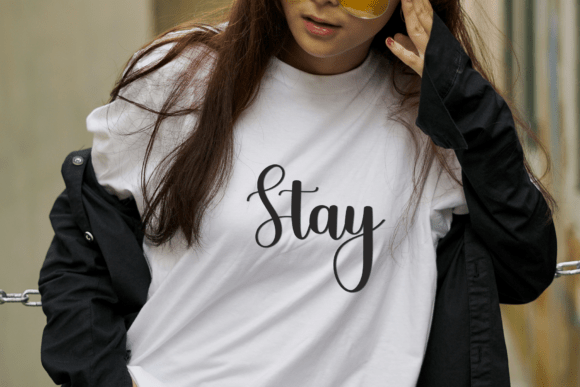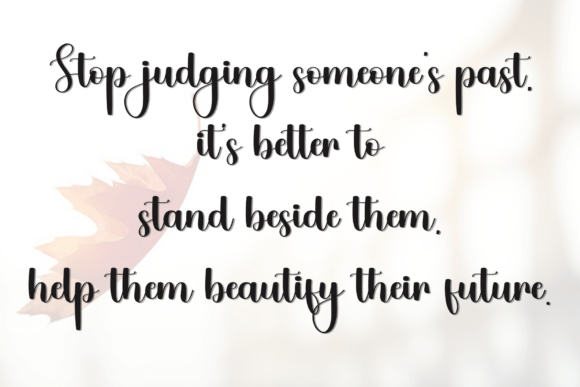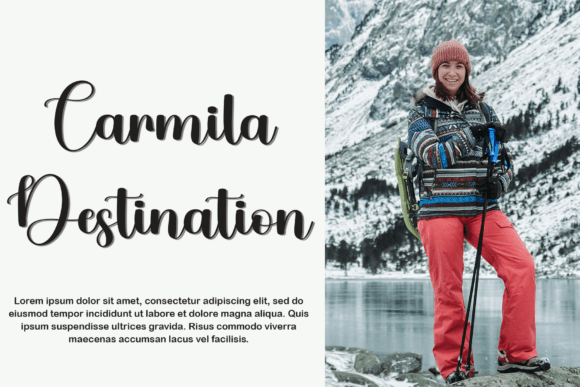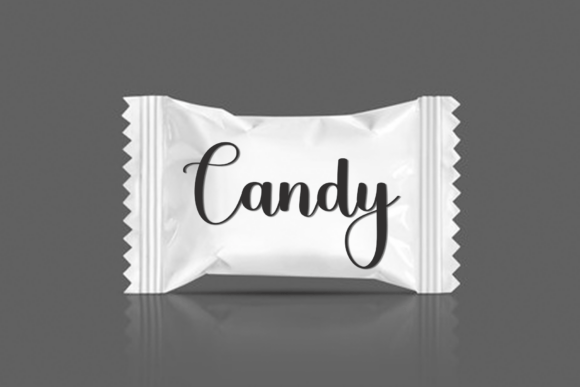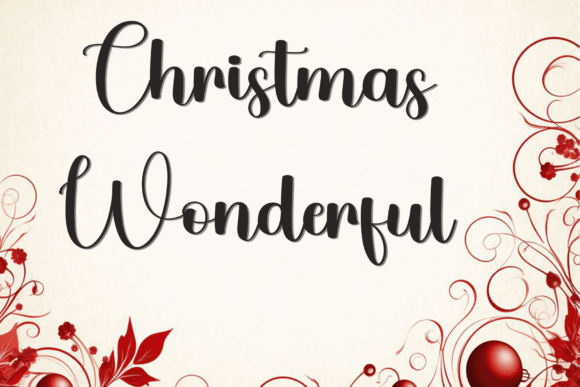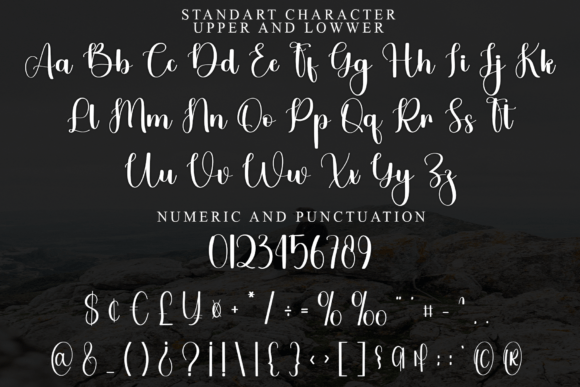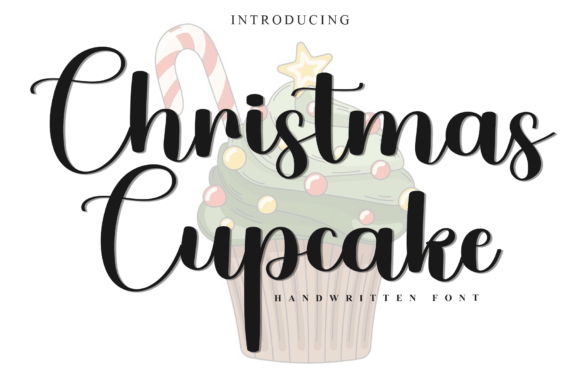
Christmas Cupcake Font: The Sweetest Addition to Your Holiday Designs
Are you looking for a font that embodies the joy and cheer of the holiday season? Look no further than the Christmas Cupcake font! This deliciously sweet and playful handwritten script font is perfect for capturing the magic of Christmas and adding a touch of whimsy to your designs.
A Deliciously Sweet Font
Christmas Cupcake is a beautifully crafted font that features thick, flowing strokes and subtle variation in baseline, giving it an energetic and homemade quality. The font’s playful and cheerful vibe makes it perfect for a variety of design projects, from bakery branding and festive packaging to Christmas cards and party invitations.
Whether you’re a designer looking for a unique font to add to your collection or a crafter seeking a special font for your holiday projects, Christmas Cupcake is an excellent choice. The font’s versatility and charm make it suitable for a wide range of applications, including:
- Bakery branding: Add a touch of sweetness to your bakery’s logo and packaging with Christmas Cupcake.
- Festive packaging: Make your holiday products stand out with a font that’s sure to put a smile on customers’ faces.
- Christmas cards: Create beautiful and festive cards that will delight friends and family.
- Party invitations: Set the tone for a fun and festive celebration with Christmas Cupcake.
Key Features of Christmas Cupcake Font
So, what makes Christmas Cupcake font so special? Here are some of its key features:
- Handwritten script font with a playful and cheerful vibe
- Thick, flowing strokes and subtle variation in baseline for an energetic and homemade quality
- Perfect for designs that require a strong dose of cheerful, whimsical, and inviting charm
- Suitable for a wide range of applications, from bakery branding to party invitations
Tips for Using Christmas Cupcake Font
To get the most out of Christmas Cupcake font, here are some tips to keep in mind:
- Use it as a headline font to add a touch of whimsy and fun to your designs.
- Pair it with a simpler font for body text to create a beautiful contrast.
- Don’t be afraid to get creative and try out new and unique design ideas!
- Q: What type of font is Christmas Cupcake?